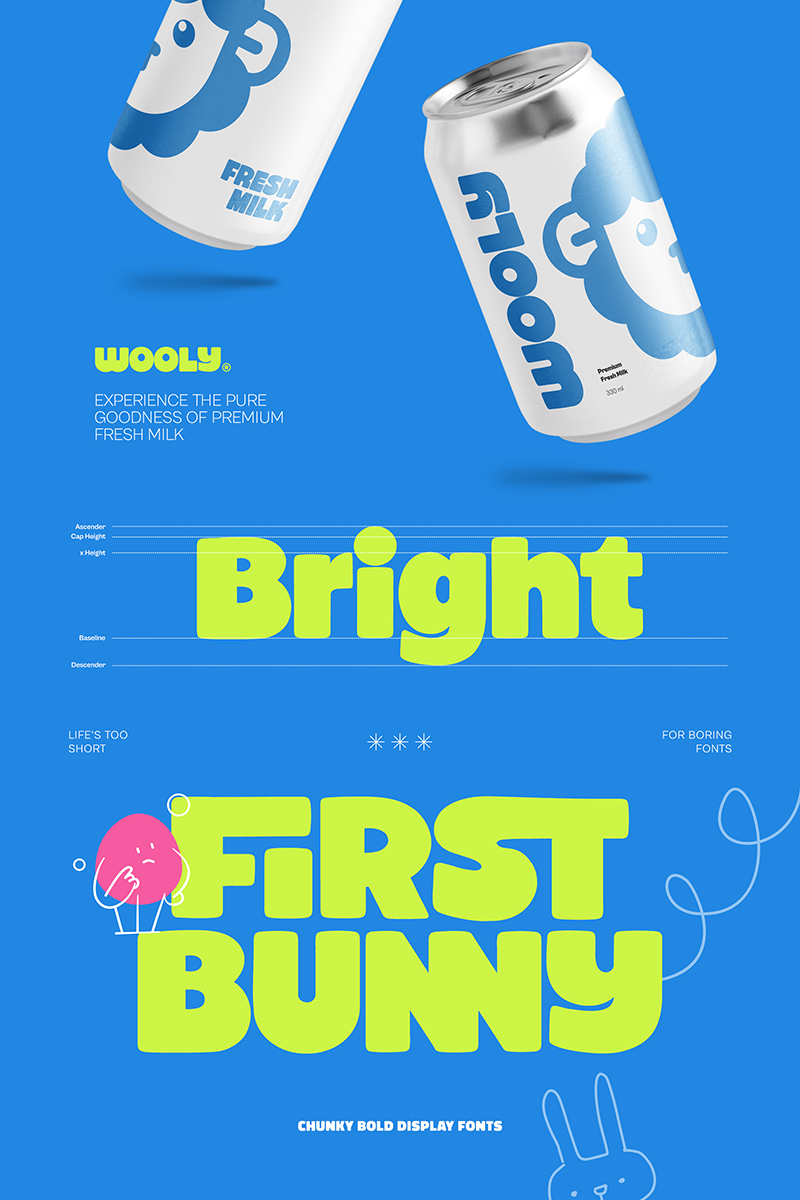
| Font name: | First Bunny |
| Author: | Namara Creative |
| Note by Namara Creative | |
chunky bold display font designed to bring a loud, joyful, and energetic personality to your creative projects. NOTE : - This font is PERSONAL USE ONLY, NO COMMERCIAL USED ALLOWED. - Link to purchase Full Version and Commercial license here https://onedsgn.com/product/first-bunny-chunky-bold-display |